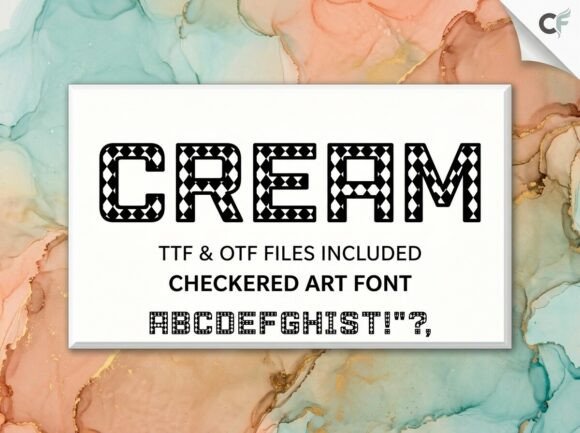
Introducing Cream Font: The Ultimate Display Typeface for Bold Designs
In the world of typography, a font can make or break a design. If you’re looking for a typeface that exudes confidence, sophistication, and a touch of playfulness, look no further than Cream Font. This high-contrast display typeface is designed to capture the essence of a “mod-and-meticulous” soul, making it perfect for designers and crafters who want to make a statement.
The Unique Features of Cream Font
Cream Font boasts bold, blocky sans-serif letterforms that are filled with a dense, rhythmic harlequin pattern of black and white diamonds. This striking design element gives the font its distinctive look and feel, setting it apart from other typefaces. The heavy structural weight and optical personality of Cream Font make it a premier choice for a variety of design applications.
Perfect for Independent Racing Team Branding
For independent racing teams, a strong brand identity is crucial for standing out in a competitive field. Cream Font is an excellent choice for racing team branding, thanks to its bold and eye-catching design. The font’s high-contrast features and harlequin pattern evoke the speed, energy, and excitement of racing, making it perfect for logos, uniforms, and marketing materials.
Retro Diner Identities Made Easy
Retro diners have become a staple of modern design, with their nostalgic charm and kitschy appeal. Cream Font is a natural fit for retro diner identities, thanks to its vintage-inspired aesthetic. The font’s bold, blocky letterforms and harlequin pattern are reminiscent of classic diner signage, making it an excellent choice for logos, menus, and advertising materials.
Avant-Garde Fashion Editorial Layouts
Fashion editorial layouts require a font that is both stylish and attention-grabbing. Cream Font fits the bill, with its bold and sophisticated design. The font’s high-contrast features and optical personality make it perfect for headlines, titles, and other design elements that need to stand out on the page.
High-Impact Social Media Headers
In the world of social media, it’s essential to make a strong first impression. Cream Font is an excellent choice for high-impact social media headers, thanks to its bold and charismatic design. The font’s checkered pattern and dense, rhythmic harlequin design make it perfect for grabbing attention and drawing users in.
Why Choose Cream Font?
So why choose Cream Font over other display typefaces? Here are just a few reasons:
- Unique Design: Cream Font’s distinctive harlequin pattern and bold, blocky letterforms make it a standout in any design.
- Versatility: Cream Font is perfect for a variety of design applications, from independent racing team branding to retro diner identities and avant-garde fashion editorial layouts.
- High-Contrast Features: The font’s high-contrast features and optical personality make it perfect for headlines, titles, and other design elements that need to stand out.
In conclusion, Cream Font is a high-contrast display typeface that is sure to make a statement in any design. With its bold, blocky letterforms and dense, rhythmic harlequin pattern, Cream Font is perfect for designers and crafters who want to add a touch of sophistication and playfulness to their work. Whether you’re working on independent racing team branding, retro diner identities, avant-garde fashion editorial layouts, or high-impact social media headers, Cream Font is the premier choice.